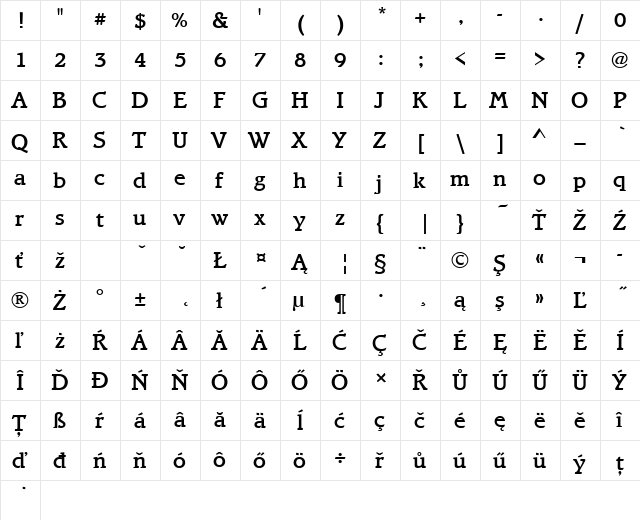
BramleyTEEMed Regular
Design Context for BramleyTEEMed Typeface
BramleyTEEMed takes a measured approach to typography — its balanced proportions and neutral character make it a reliable workhorse for both digital and print work.